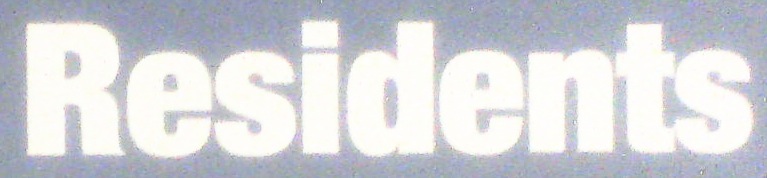
eh?!
Can't be. I tried that and it didn't line up.
It is.
Did you try tracking/letterspacing it?!?
1. Grab the logo .png from the site.
2. Place it in Illustrator @ 100% (do not re-size it)
3. Type "MacRumors" in Myriad Pro Bold @ 73.47 pt with -43 tracking/letterspacing on top of it.
That's about 99% accurate.
How's that work for you?
I use photoshop, and when I set that tracking it was finally mostly right but not perfect, so I had to manually track between each letter a bit. But the main thing I had wrong was the size.
Font Identification
Any ideas on what this font is? I'd like to use it for a header.
Can anyone help me identify these fonts?
I have been searching for these fonts, can any of the font/type experts out there help me identify the two fonts below? Or fonts that are close or similar? Also, if anyone has them, it would be fantastic if you could attach them for me.
What fonts are these?
I uploaded two screen shots and I was wondering what fonts are being used. Any help would be appreciated.
Pardon me for asking ...but why does it matter?
I see a fairly indistinct sans-serif font in the right-side text.
Use whatever fairly indistinct sans-serif font you want and you'll replicate it pretty closely.
What am I missing here?